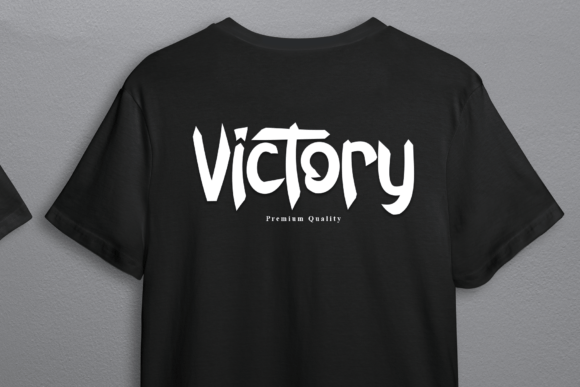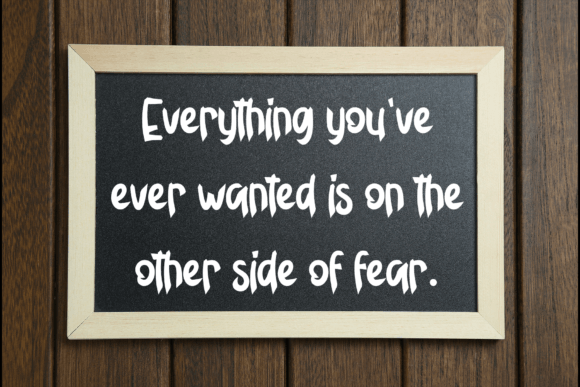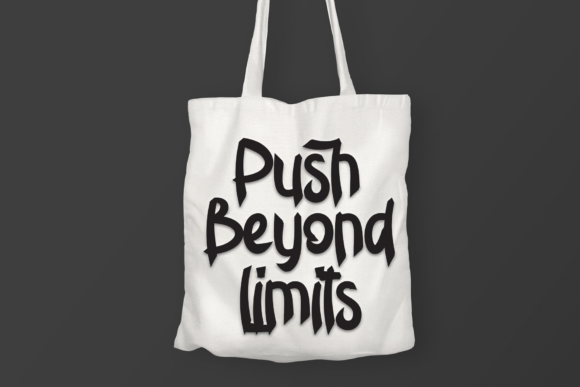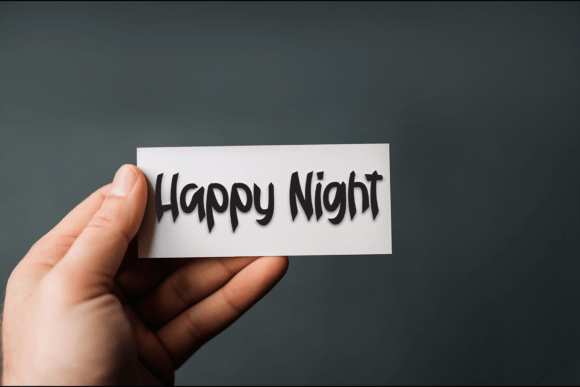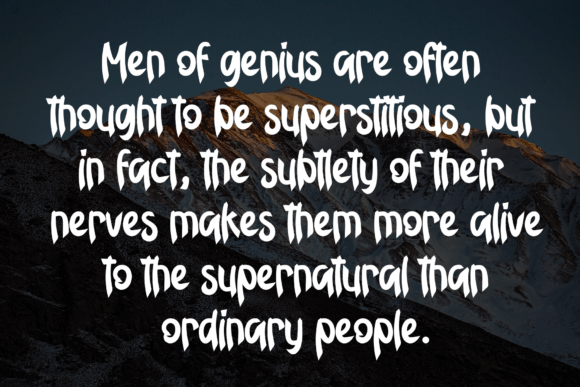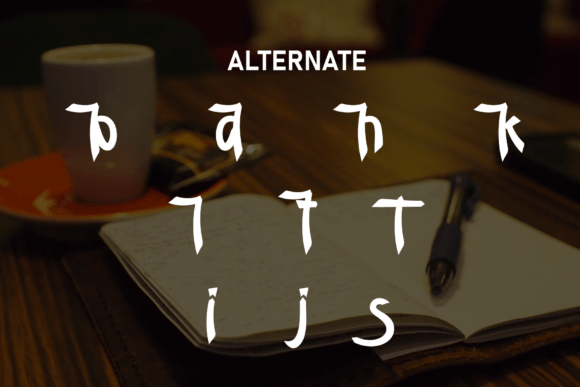
Introduction to Night Notes Font
Have you ever found yourself in the middle of a creative project, staring at a blank page, and desperately searching for the perfect design element to bring it to life? That’s exactly what happened to me last week, and I stumbled upon the Night Notes Font – a game-changer that instantly took my project to the next level.
The Night Notes Font is an edgy and cool handwritten font that’s as versatile as it is unique. Its natural style makes it an ideal design resource for a wide range of creative projects, from brochures to social media graphics. What I love most about this high-quality font is its availability for free download, making it an instant favorite among designers.
Key Features of Night Notes Font
- High-quality, professional font designed for creative projects and artistic expression.
- Unique, handcrafted design with a distinctive aesthetic, making it perfect for adding a touch of elegance to any creative project.
Honest Review: Night Notes Font
I recently had the chance to play around with the Night Notes Font, and I must say, it’s a fantastic addition to any designer’s toolkit. The font itself is a high-quality, creative project that can really elevate a design. I appreciate how easily it can be downloaded for free, making it a valuable design resource for anyone looking to add some visual flair to their work.
One of the standout features of the Night Notes Font is its transparent background, which makes it incredibly versatile. It can be used on a wide range of designs, from simple text overlays to complex, layered compositions.
Here are some of the things that work well with the Night Notes Font:
- ✨ Highly customizable, with a range of styles and sizes to choose from
- ✨ Easy to read, even in small sizes
- ✨ Can be used in a variety of contexts, from digital designs to print materials
However, there are a few limitations to be aware of:
- ⚠️ The font may not be as effective in very busy or cluttered designs
- ⚠️ Some users may find the font too playful or attention-seeking
Overall, I’m really impressed with the Night Notes Font. It’s a great addition to any designer’s toolkit, and I can see it being used in a wide range of creative projects. Just be mindful of the potential limitations, and use it thoughtfully to get the best results.